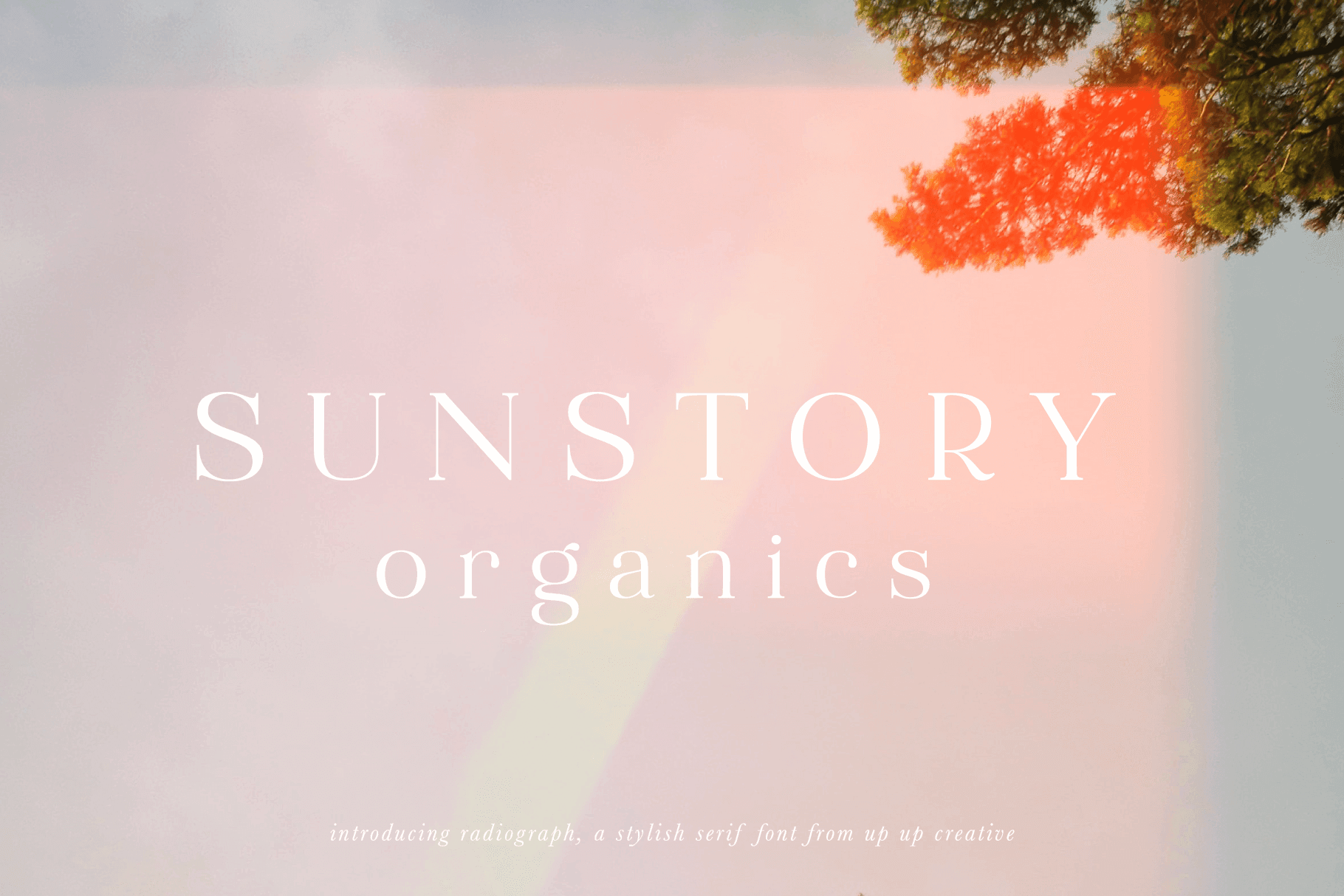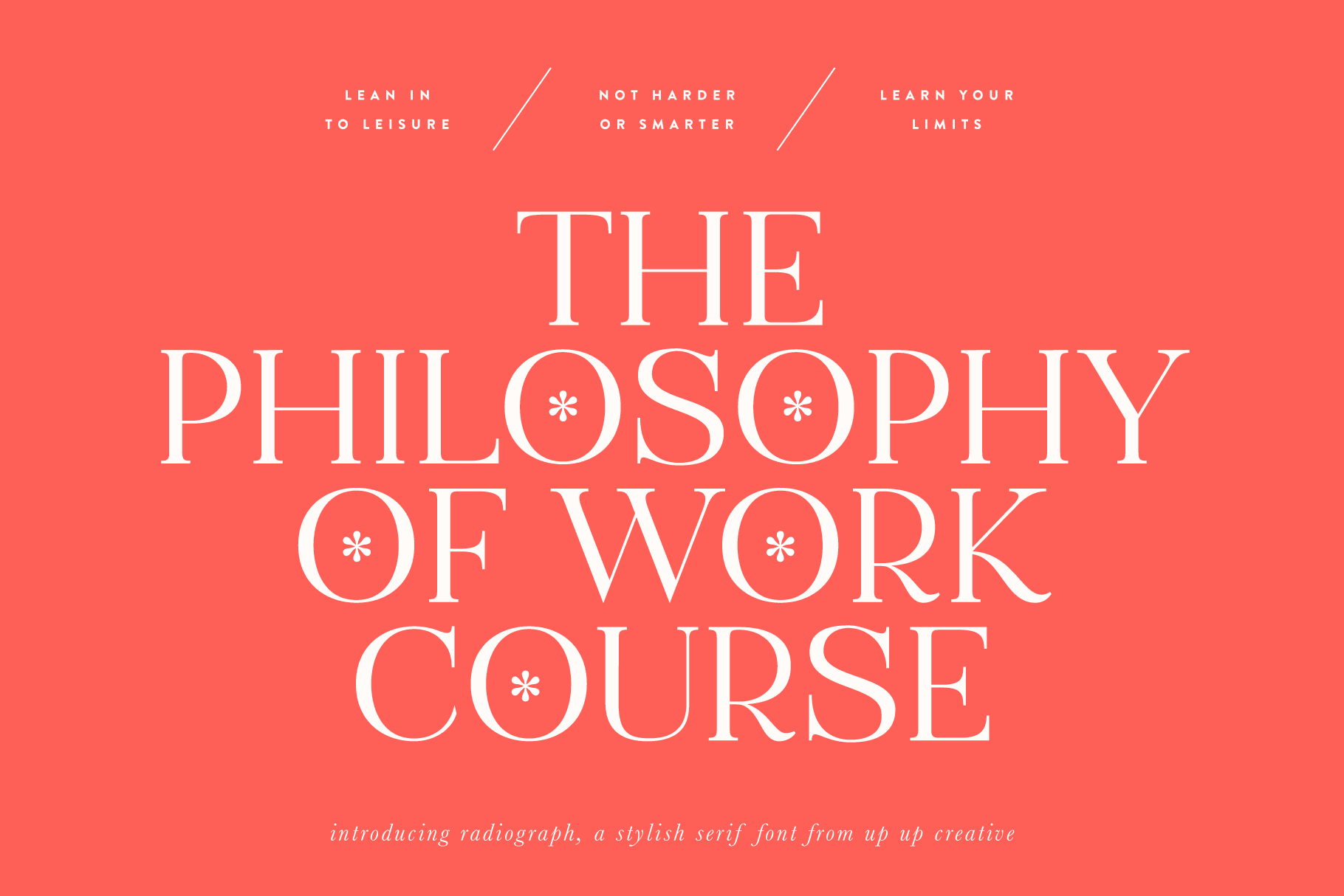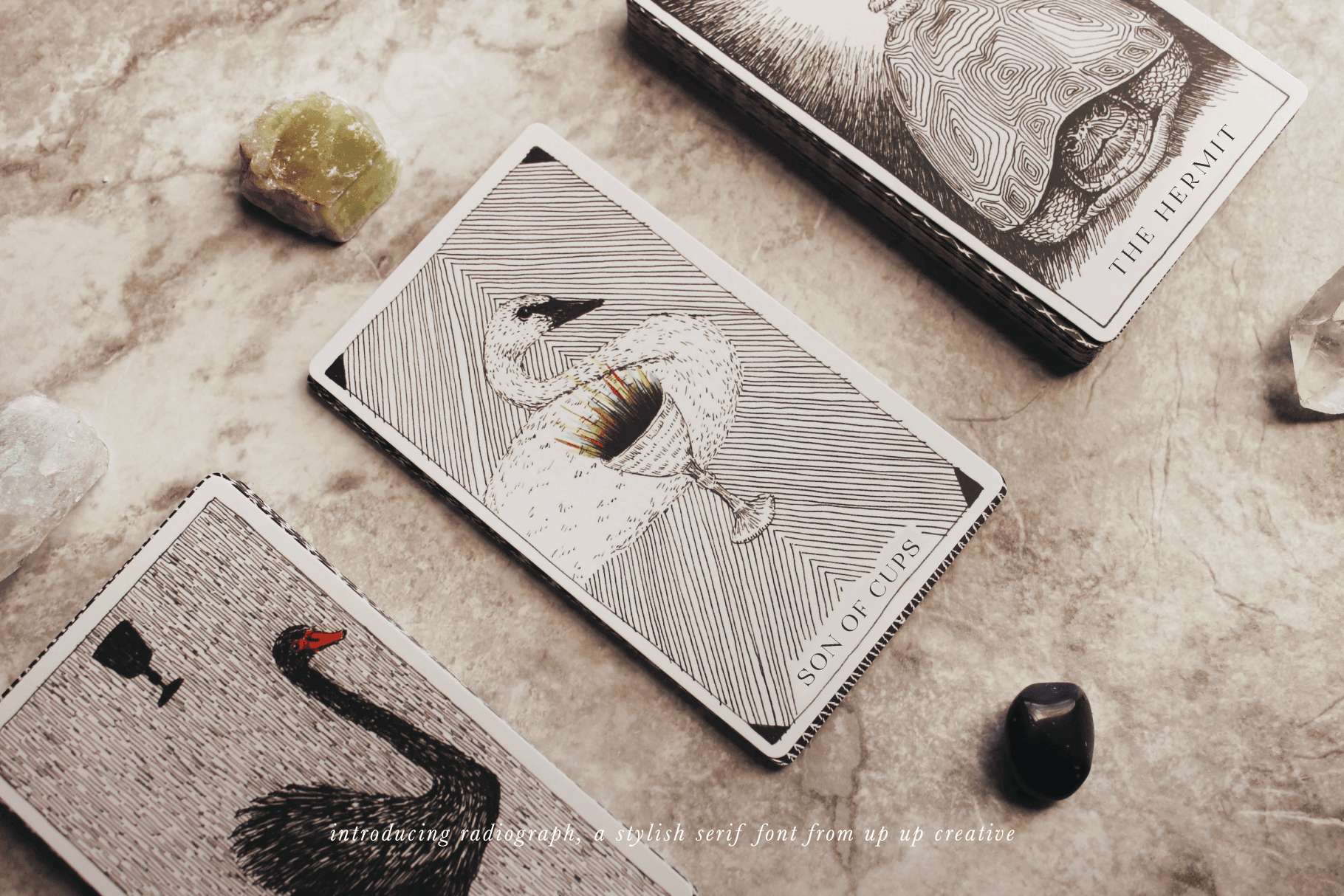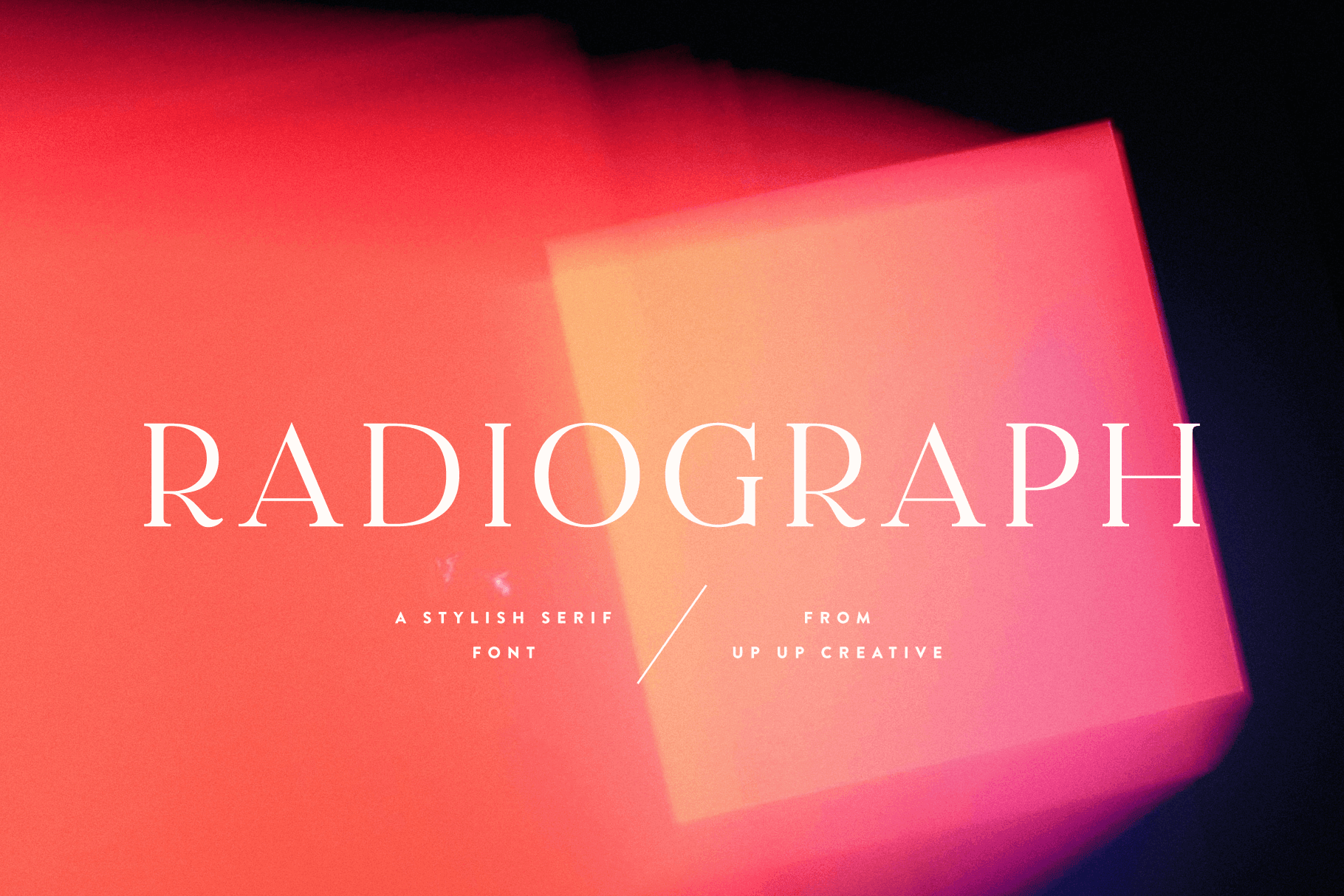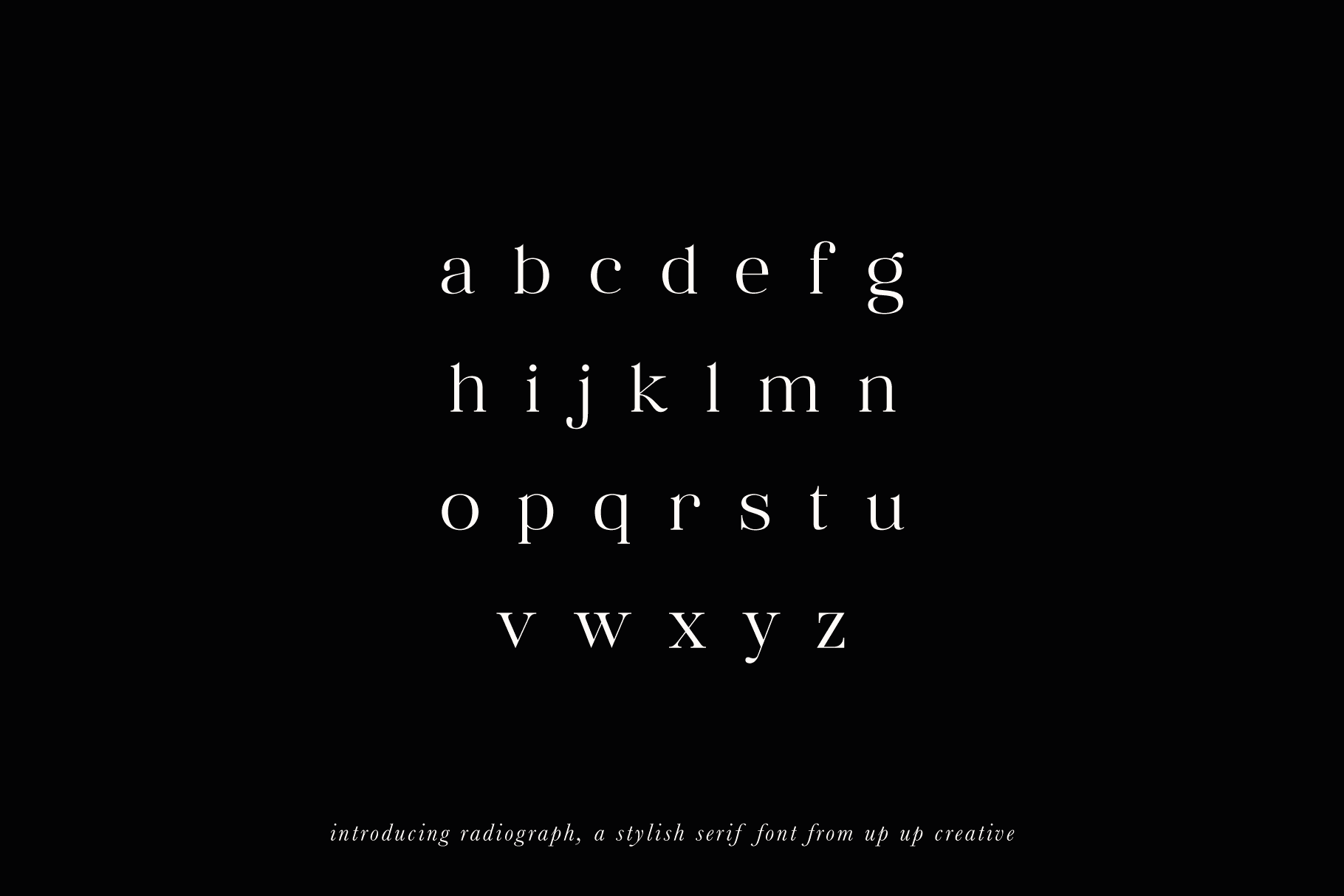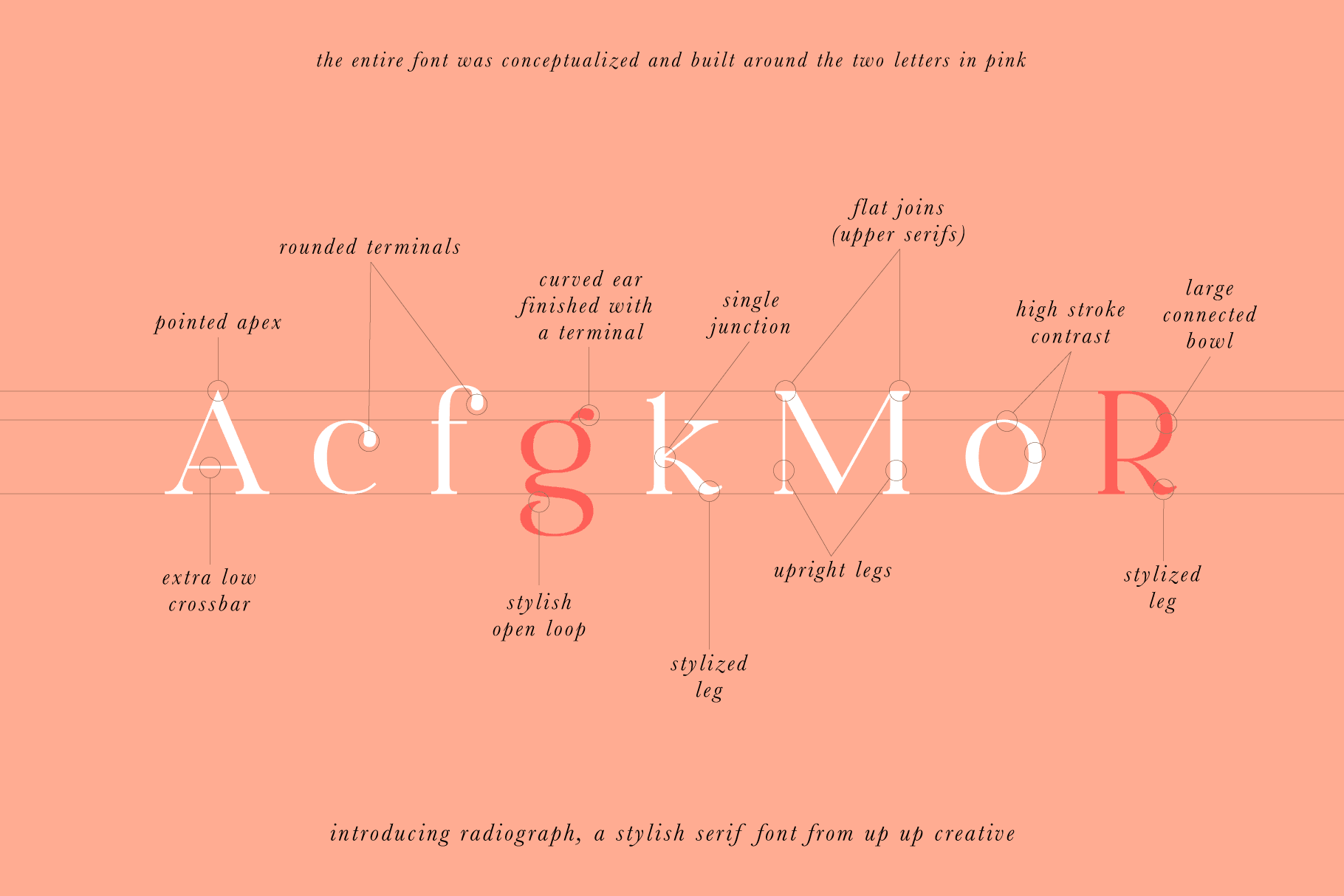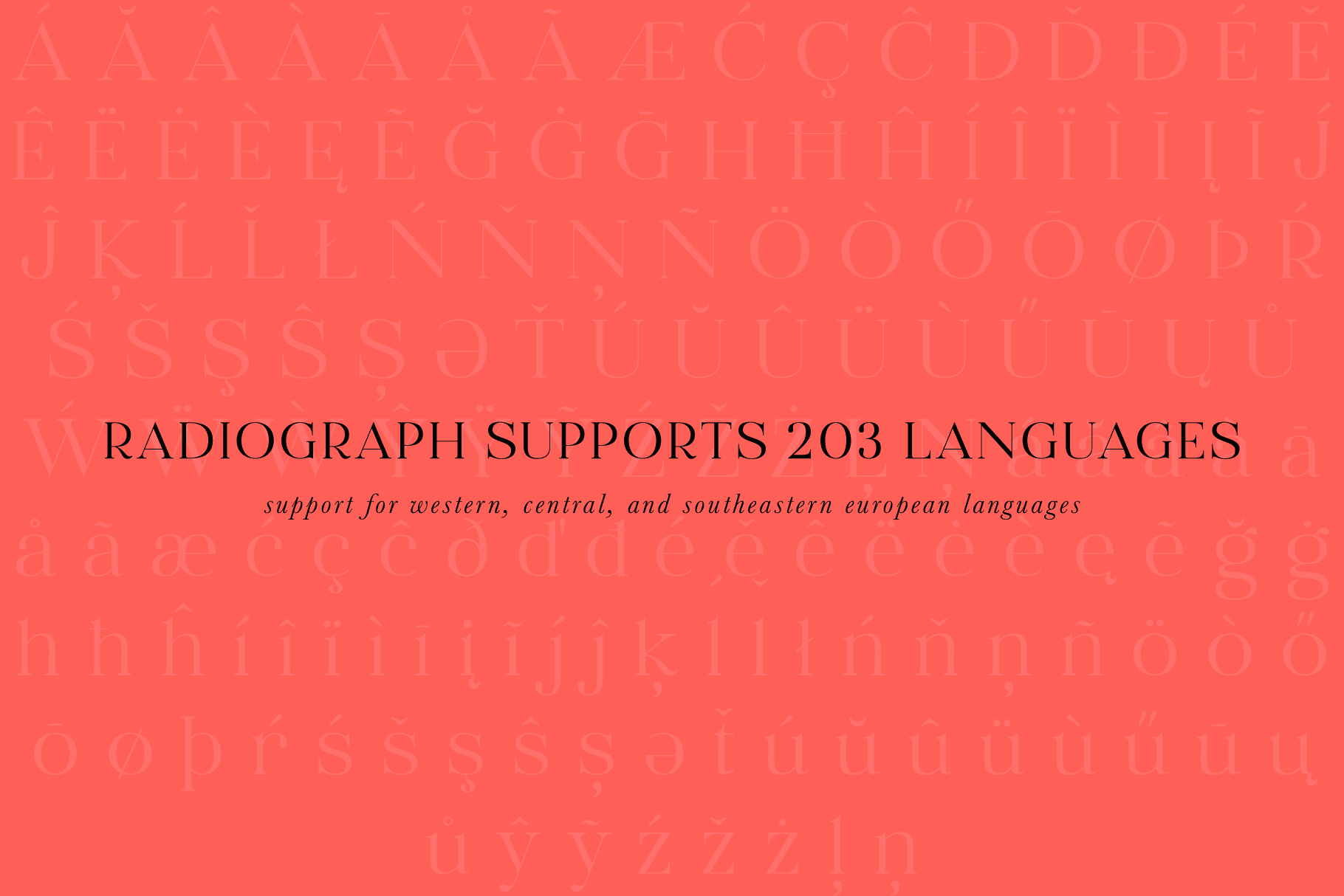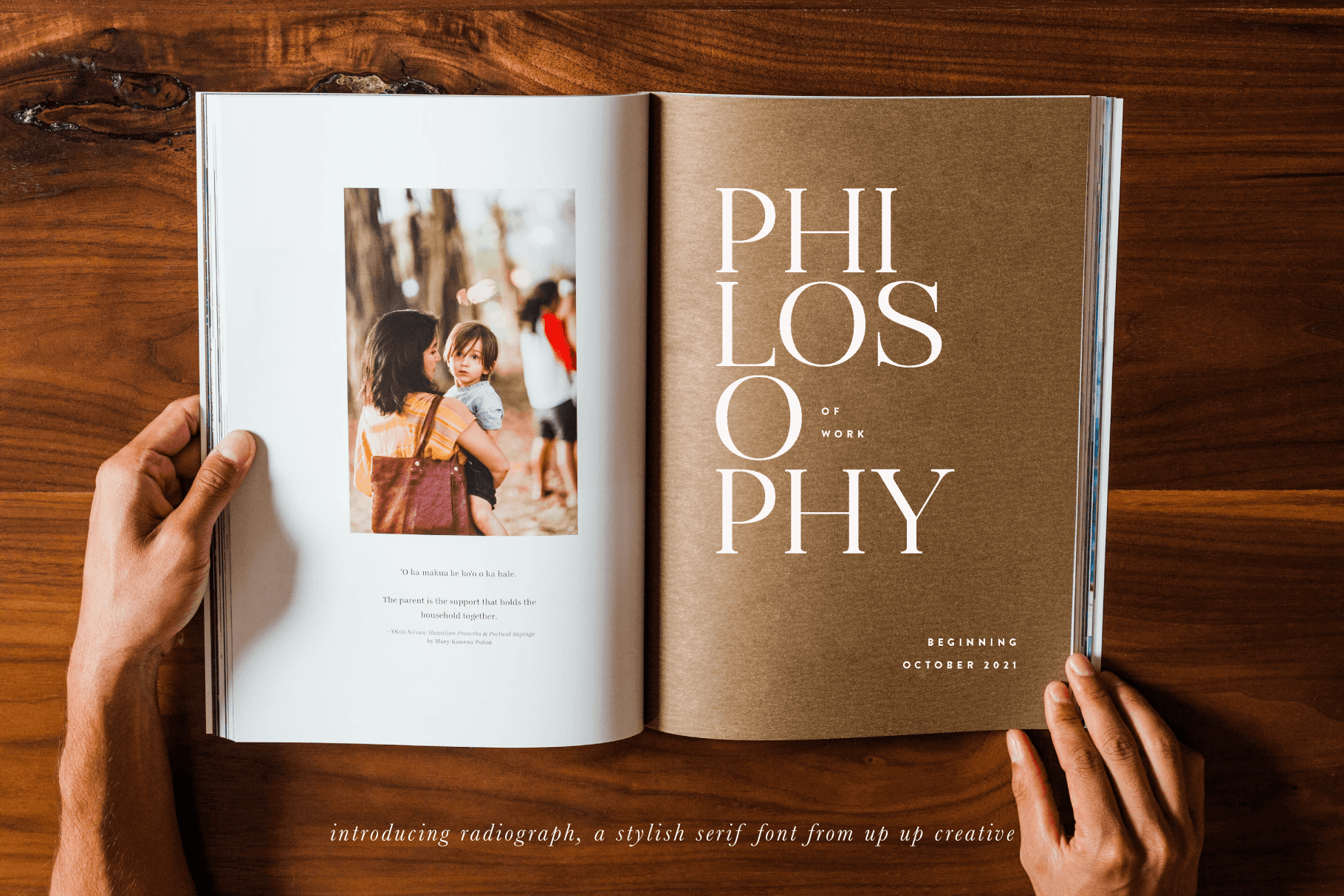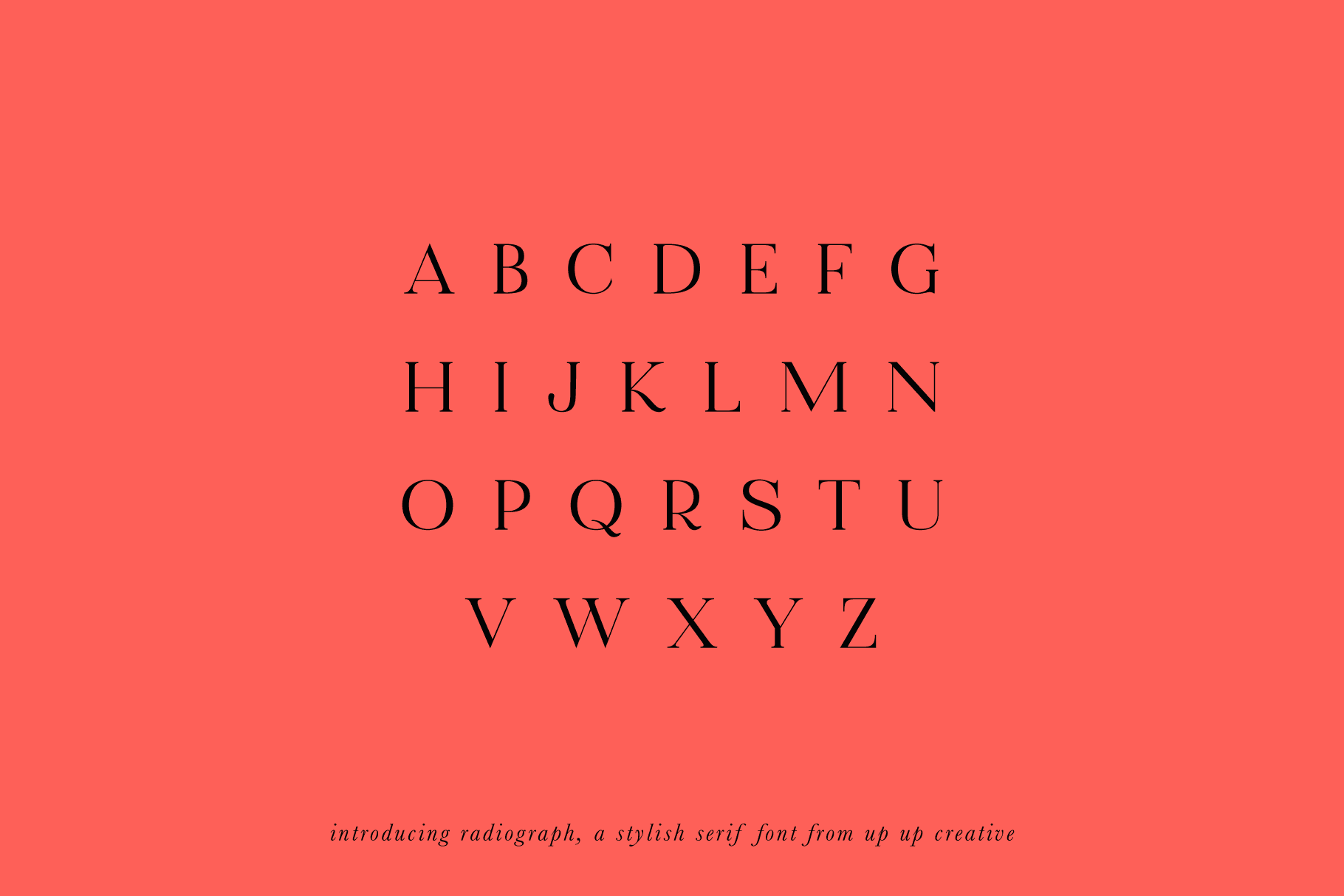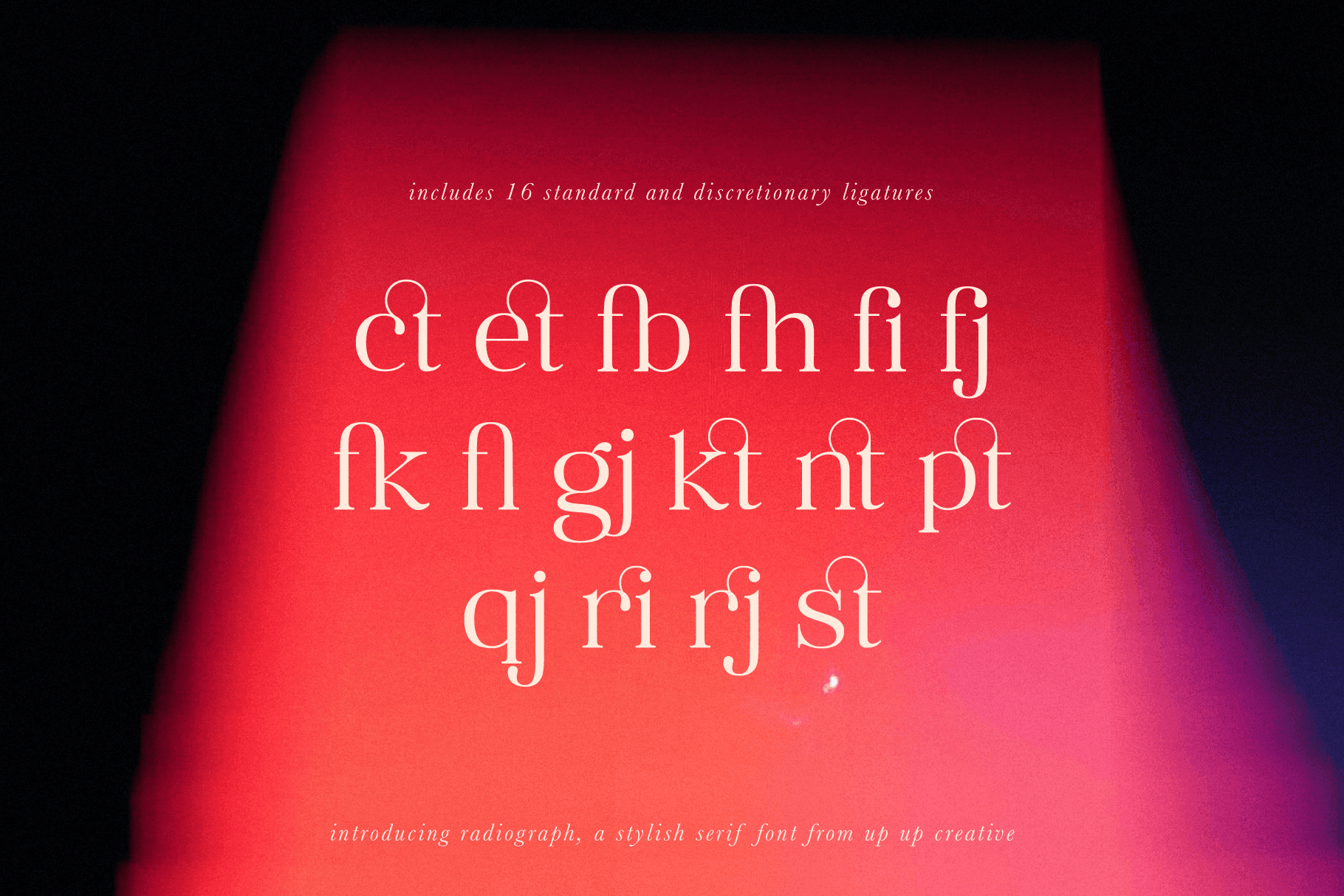
Radiograph Serif Font
Radiograph is a stylish serif font with subtle curves and playful proportions. It’s equally at home in all-caps headlines as it is in full paragraphs. Radiograph is perfect for headlines, editorial design, monograms, branding, logos, poster design, and more.
OpenType Features
- character variants
- standard and discretionary ligatures
- lining figured and oldstyle figures
- localized forms (multi-language and multi-currency support)
- fractions, ordinals, and superscripts
- stylistic sets
Includes 16 ligatures
- Released in 2021
- Includes 484 glyphs
- 1 Style, 1 Weight